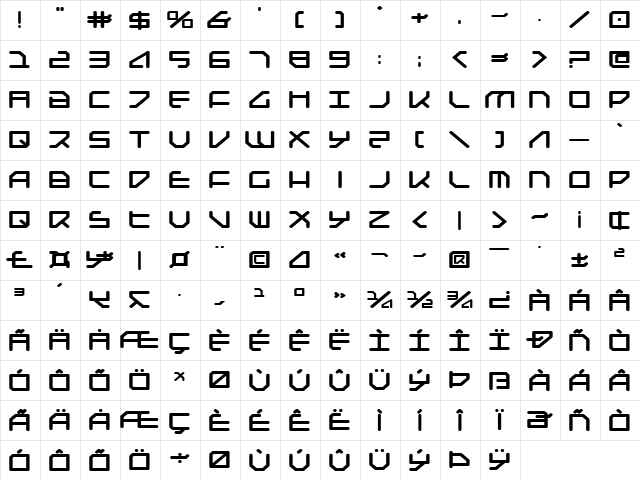
Federapolis Expanded Bold Expanded Bold
Design Context for Federapolis Expanded Bold Typeface
Federapolis Expanded Bold is a composed and adaptable typeface that performs quietly and consistently across a wide range of design contexts. The heavy weight commands attention and anchors typographic hierarchies.
Pro Tip: Use Federapolis Expanded Bold in both headline and body roles to test its range before committing to a single application.